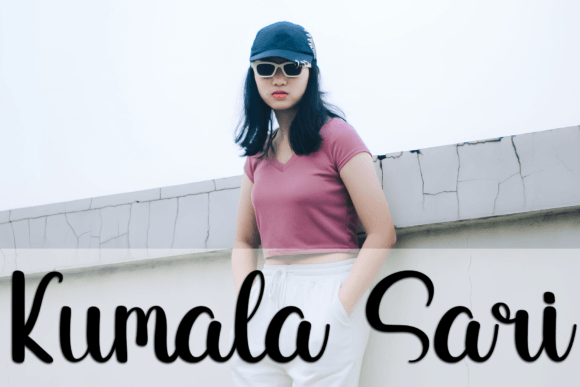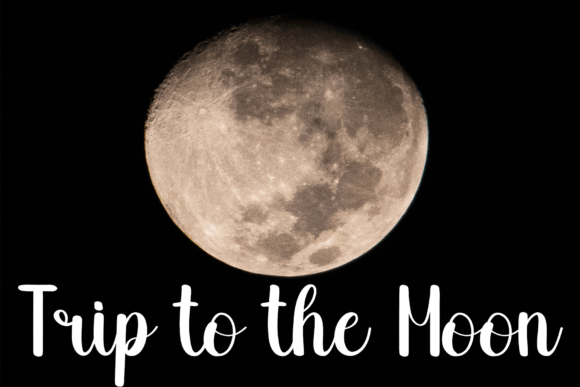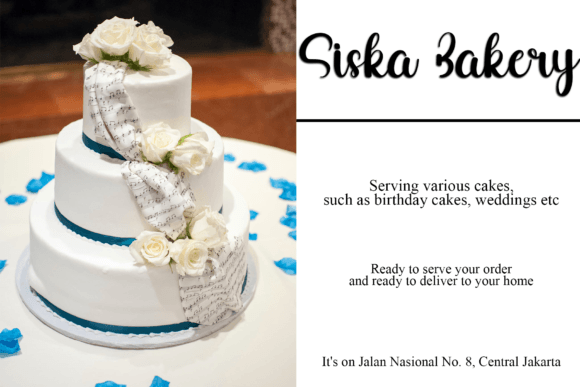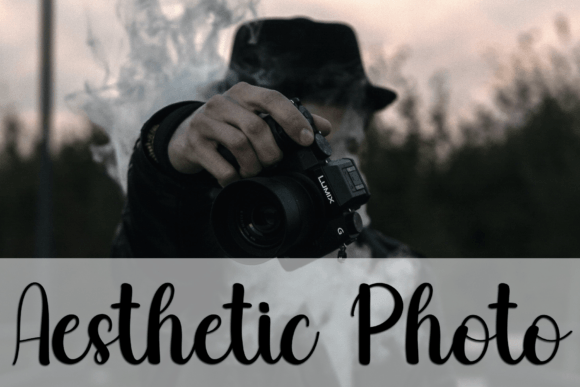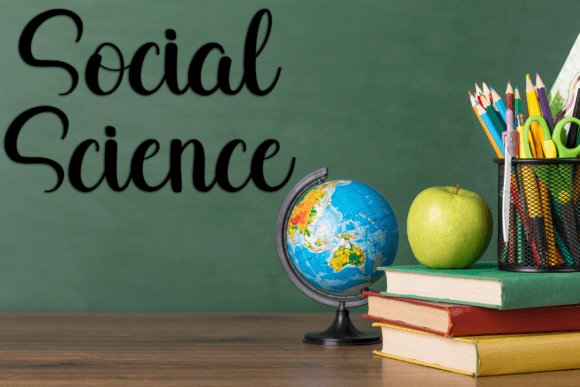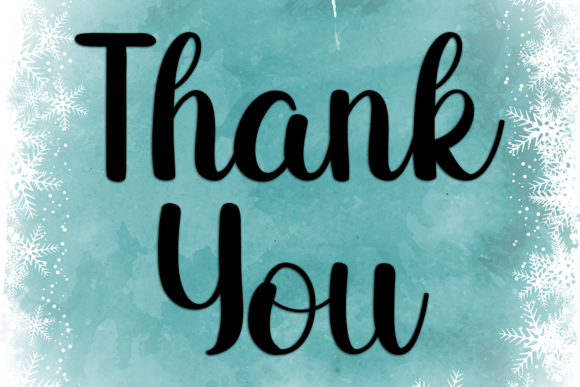
Unlock the Magic of Beauty Familly Font
You’ve spent hours brainstorming, sketching, and refining your design concept – and finally, it’s time to bring it to life. But, as you stare at the blank canvas, something’s missing. That’s when you remember the secret ingredient: a font that speaks directly to your audience’s emotions. Welcome to Beauty Familly Font, a cool, simple, and playful handwritten font that elevates your designs to new heights.
Whether you’re a seasoned designer or just starting out, Beauty Familly Font is an invaluable addition to your toolkit. Its incredible versatility makes it the perfect fit for a wide range of designs, from elegant invitations to fun social media graphics. With Beauty Familly Font, you can breathe new life into your ideas and make them truly unforgettable.
Beauty Family Font Key Features
- Font Family: Beauty Family consists of 8 font styles, including Beauty, Beauty Bold, Beauty Italic, Beauty Bold Italic, and more.
- Unique Characteristics: The Beauty Family font features a unique blend of elegance and sophistication, with subtle curves and refined lines that evoke a sense of luxury and refinement.
Beauty Familly Font Review
At first glance, the Beauty Familly Font seems like a great choice for any design project. The font’s unique blend of elegance and playfulness ✨ makes it stand out from more traditional serif fonts. The font’s bold and curved lines create a sense of movement and energy, perfect for designs that need to grab attention.
- The font’s versatility: Beauty Familly can be used for a wide range of designs, from logos to headings and body text.
- The font’s bold and curved lines: This feature adds a touch of elegance and playfulness to any design.
- The font’s large character set: Beauty Familly includes a wide range of characters, including international characters and punctuation.
- The font may not be suitable for very formal or professional designs: While Beauty Familly is elegant, it’s not as traditional or formal as some other serif fonts.
- The font may be difficult to read at very small sizes: Beauty Familly’s bold lines and curves can make it harder to read at very small font sizes.
Overall, I think the Beauty Familly Font is a great choice for designers who want to add a touch of elegance and playfulness to their designs. While it may have some limitations, the font’s versatility and unique features make it a great addition to any design project.
For the best results, use the Beauty Family Font for headings, titles, and other large text elements. It’s also suitable for creating elegant and sophisticated designs, such as wedding invitations, product labels, and packaging materials.